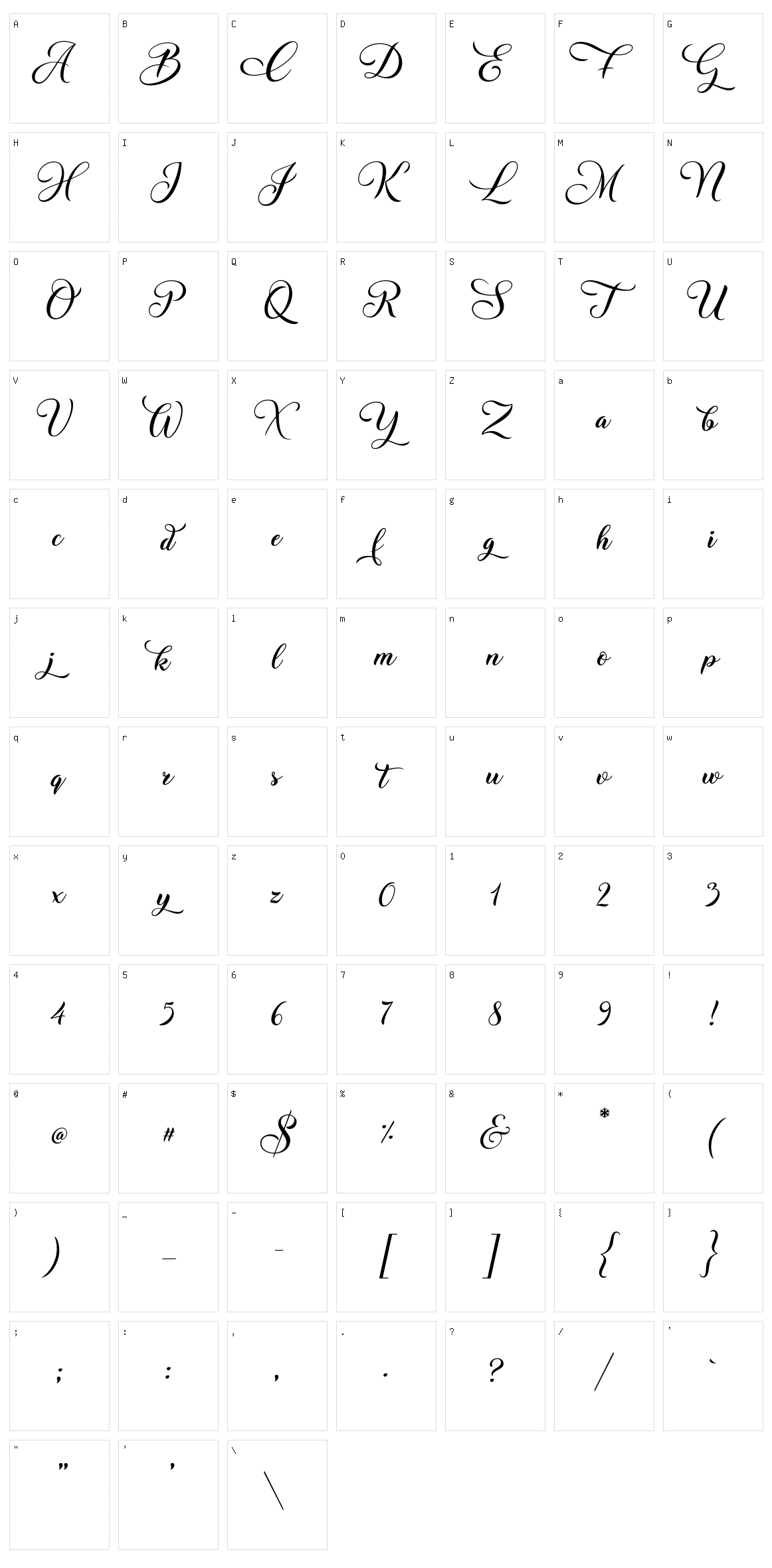
Christmas Wish Calligraphy
Designed by: Roland Huse Design
CHRISTMAS WISH is a cursive calligraphy style script that comes in two weights: a Monoline and a Calligraphic version.
Contains Western European accented characters and stylistic alternates for "s" and "h", standard ligatures for double letters ll tt. Please note that the font is primarily meant to type Christmas Greetings and words with, so all lowercase won't look good and swashes may overlap in some letter connections. I am working on the extension with extra swashes and ligatures and updates may follow soon.